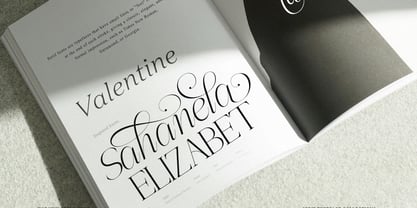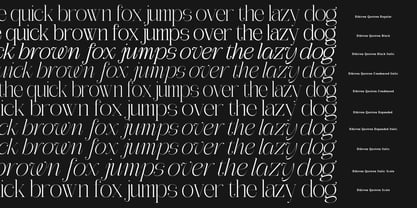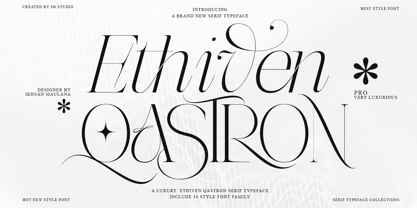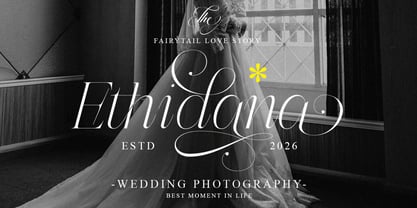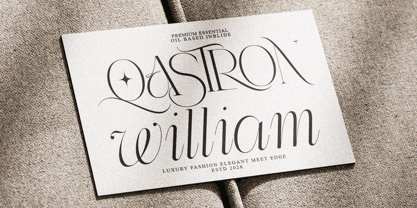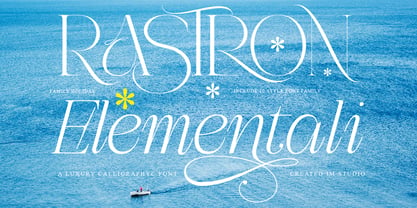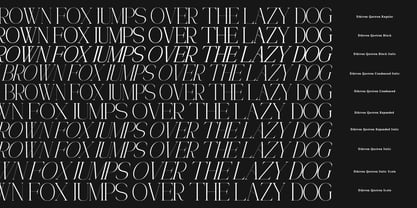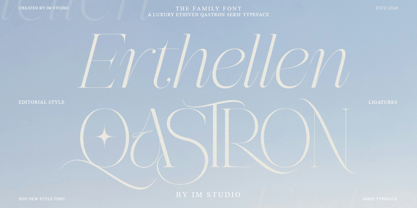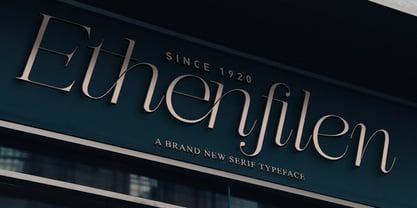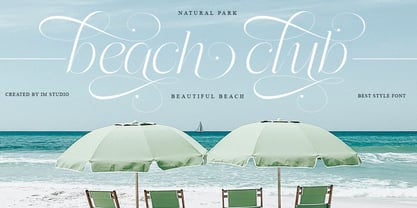
Ethiven Qastron
por IM Studio
La familia tipográfica Ethiven Qastron fue diseñada por Ikhsan Maulana y publicada por IM Studio. Ethiven Qastron contiene 10 estilos y opciones de paquete familiar. Más información sobre esta familia
Ethiven Qastron | 10 Font Styles – Modern Serif Font Family. Elevate your designs with Ethiven Qastron, the ultimate modern display serif typeface, luxury serif font, and premium display font that delivers timeless elegance with a modern twist. Subtle contrasts and flowing curves create a high-end typographic feel—the perfect serif font family for projects requiring sophisticated fonts, elegant serifs, and stunning luxury typography. A highly versatile display serif font family for branding fonts, logo serif fonts, fashion show editorial font families, magazine typography fonts, eye-catching packaging, and any creative endeavor requiring a premium serif typography touch. Uppercase and lowercase with support for multilingual fonts & international typefaces. A stunning array of elegant styles for titles, artistic typography fonts, and display headings. Specially designed for: Serif fonts for branding and logo design Editorial fonts and magazine serif fonts Fashion fonts and luxury fashion typography Poster fonts and book cover typography Website fonts, social media fonts, and web serif typography Get a collection of modern serif fonts, high-end display serif fonts, and creative market typefaces that redefine luxury editorial fonts—get them now and upgrade your premium font collection!
Diseñadores: Ikhsan Maulana
Fundición: IM Studio